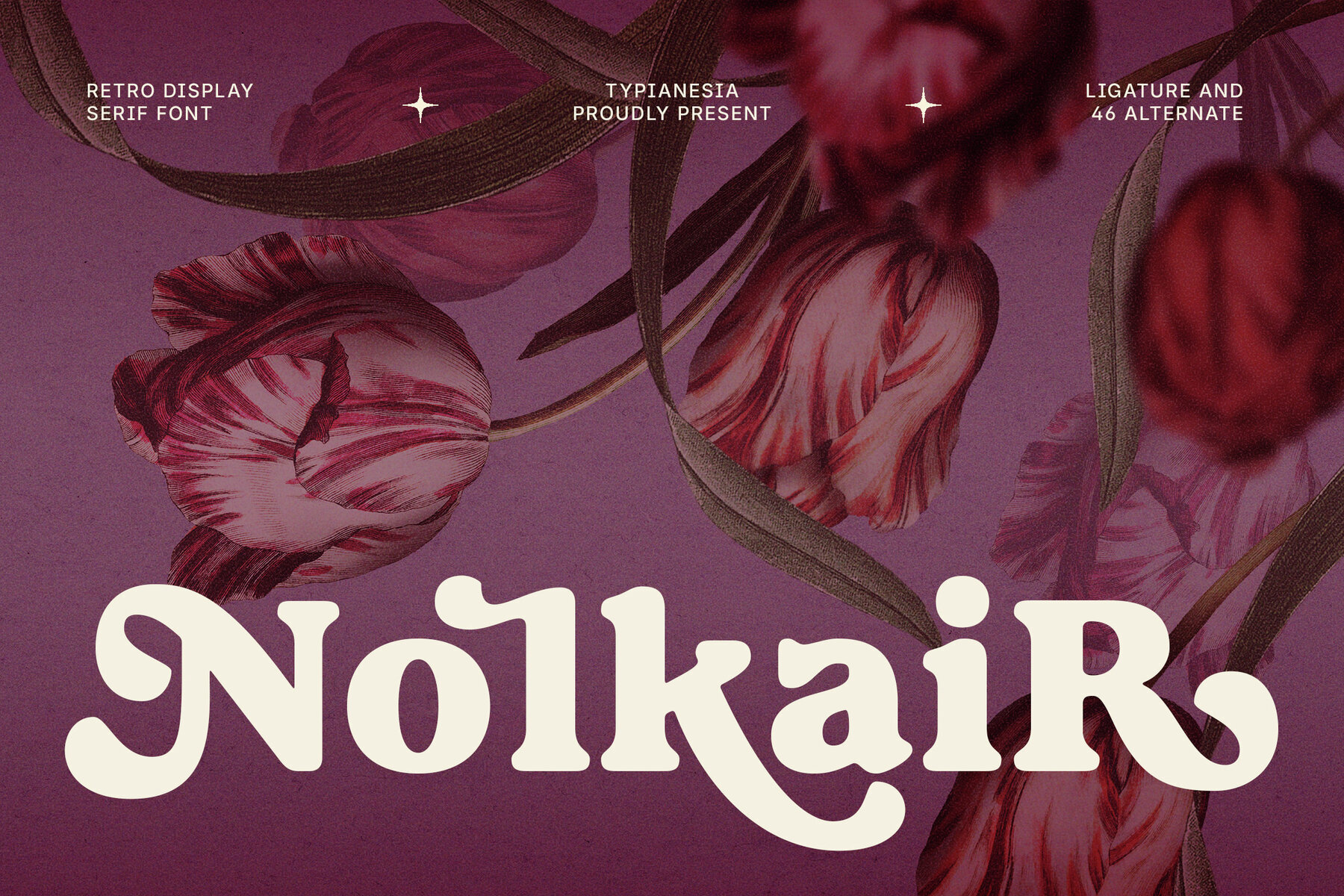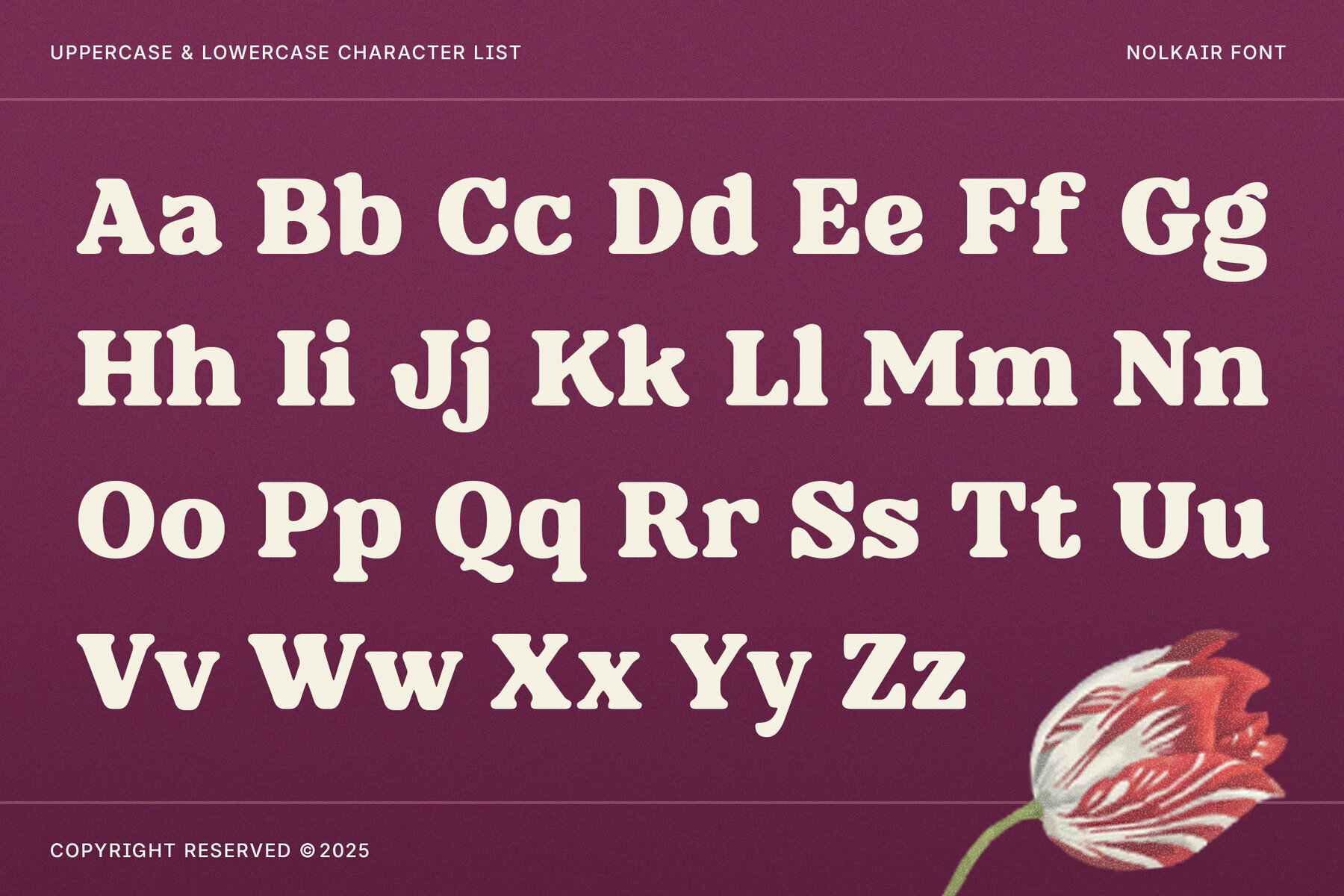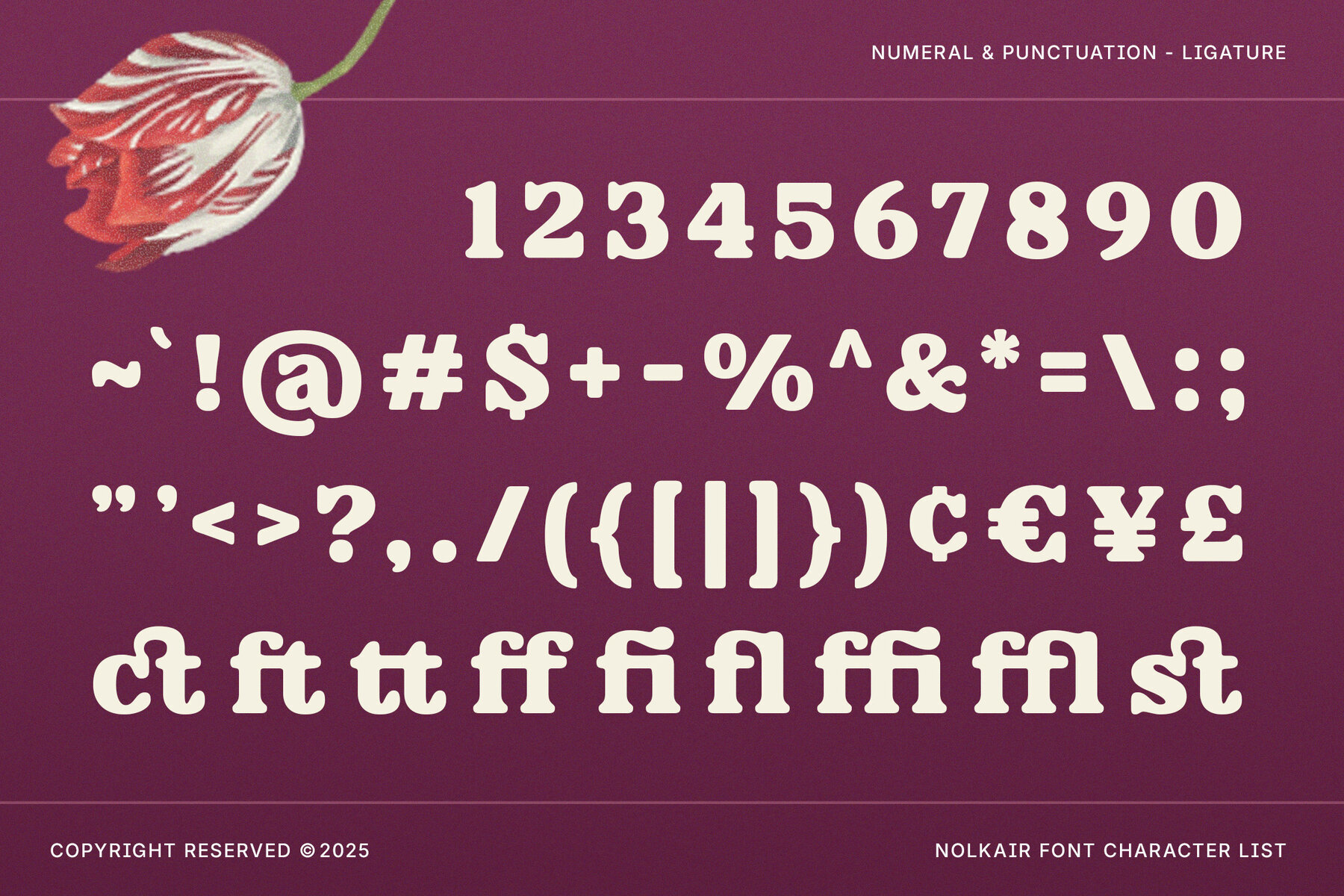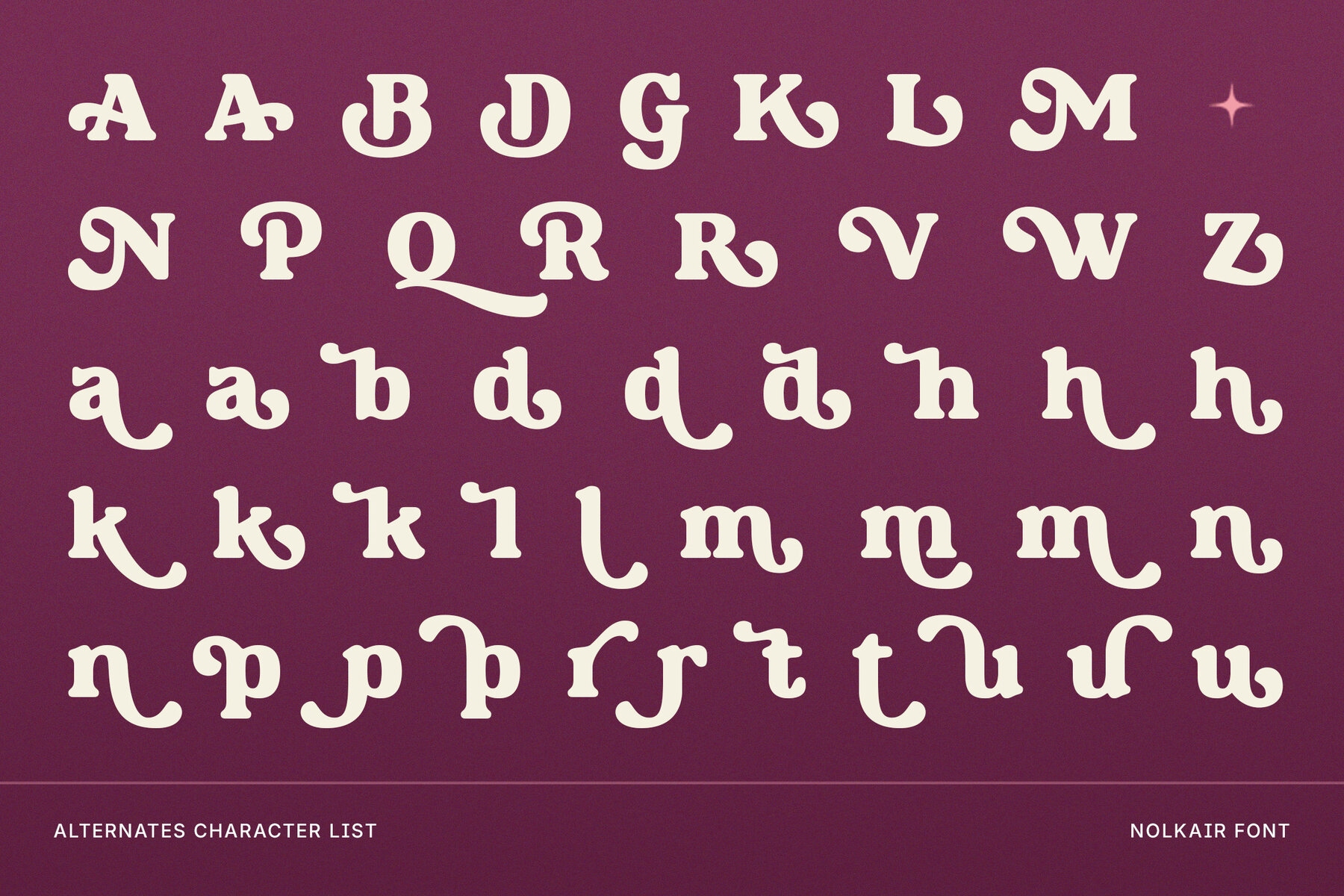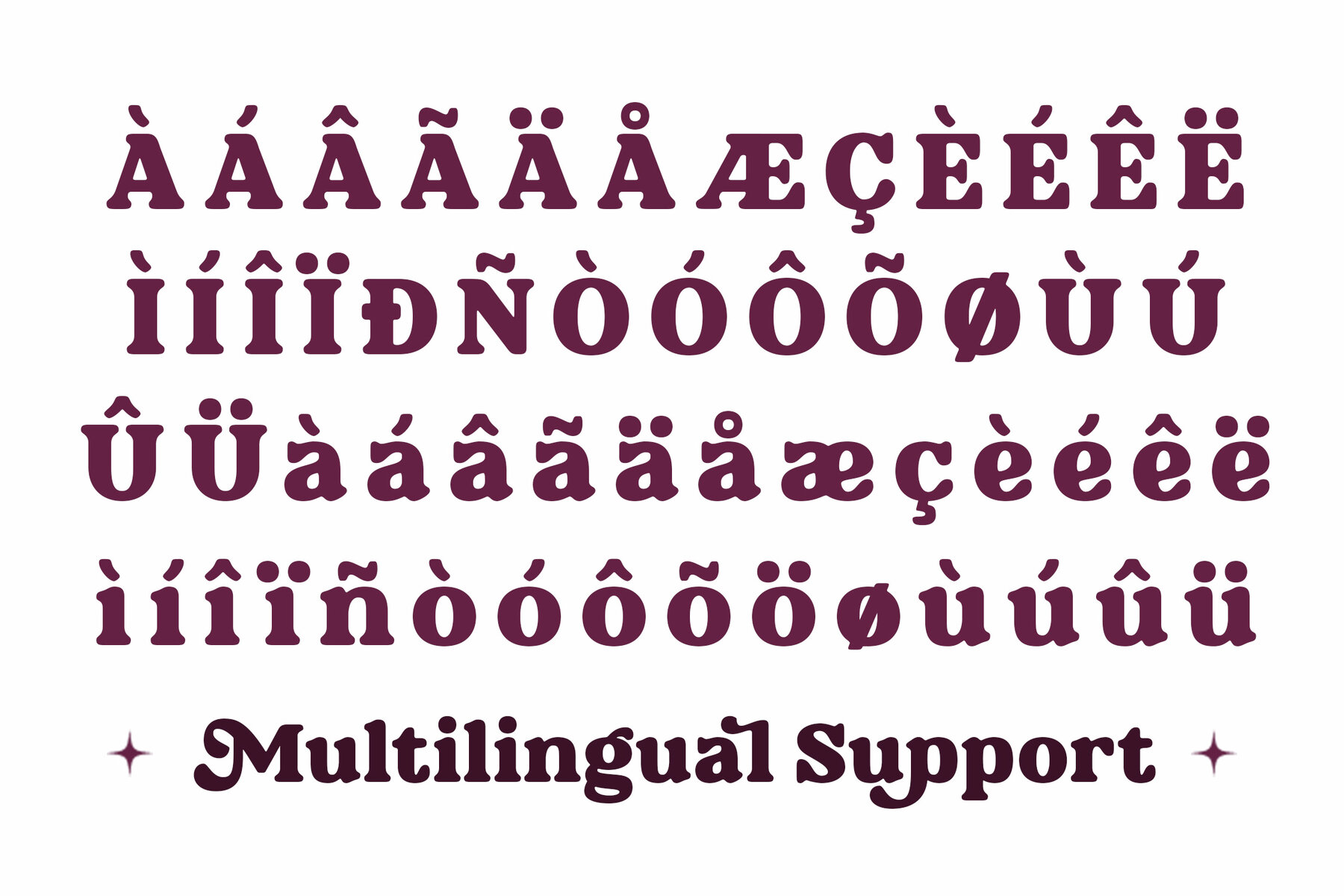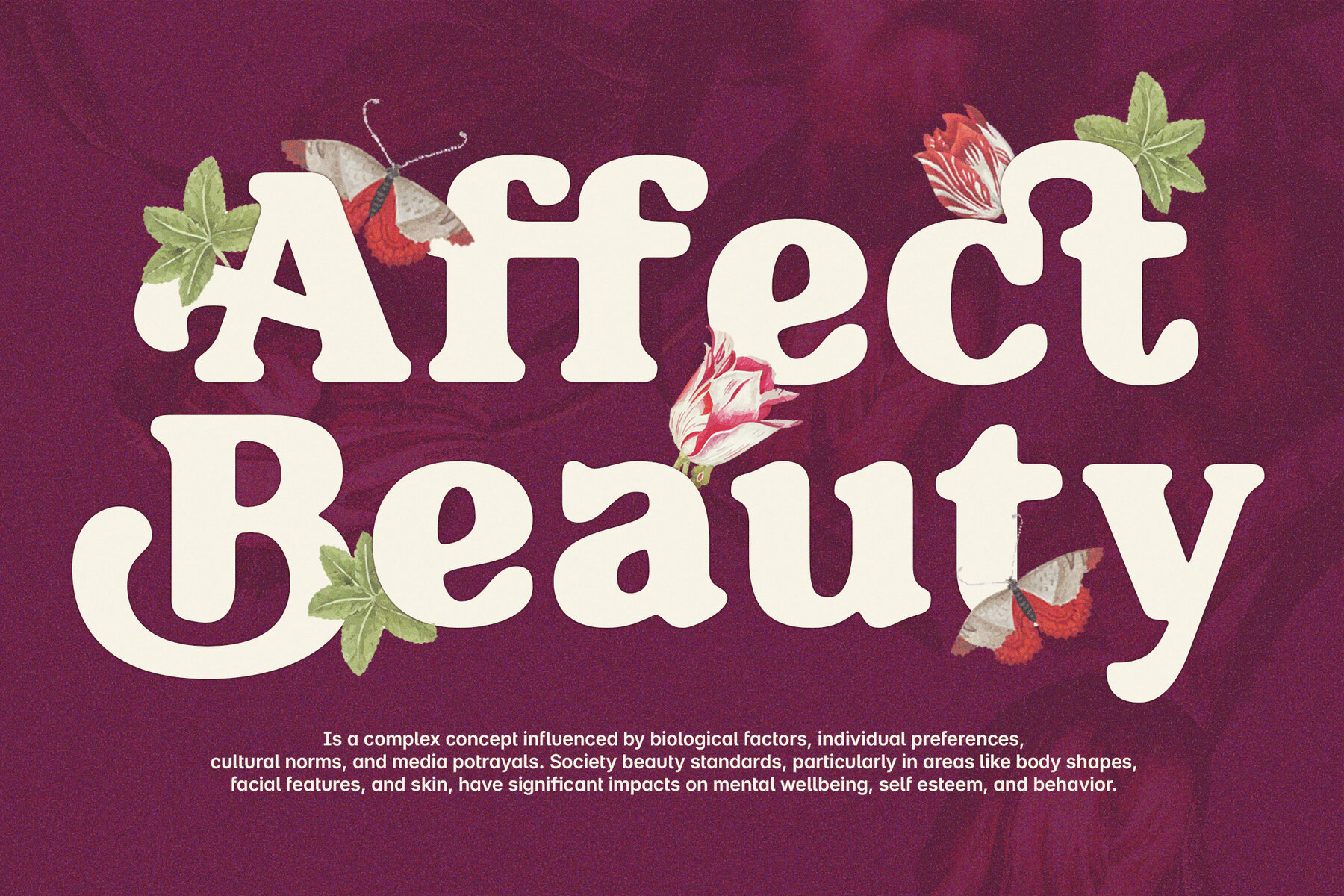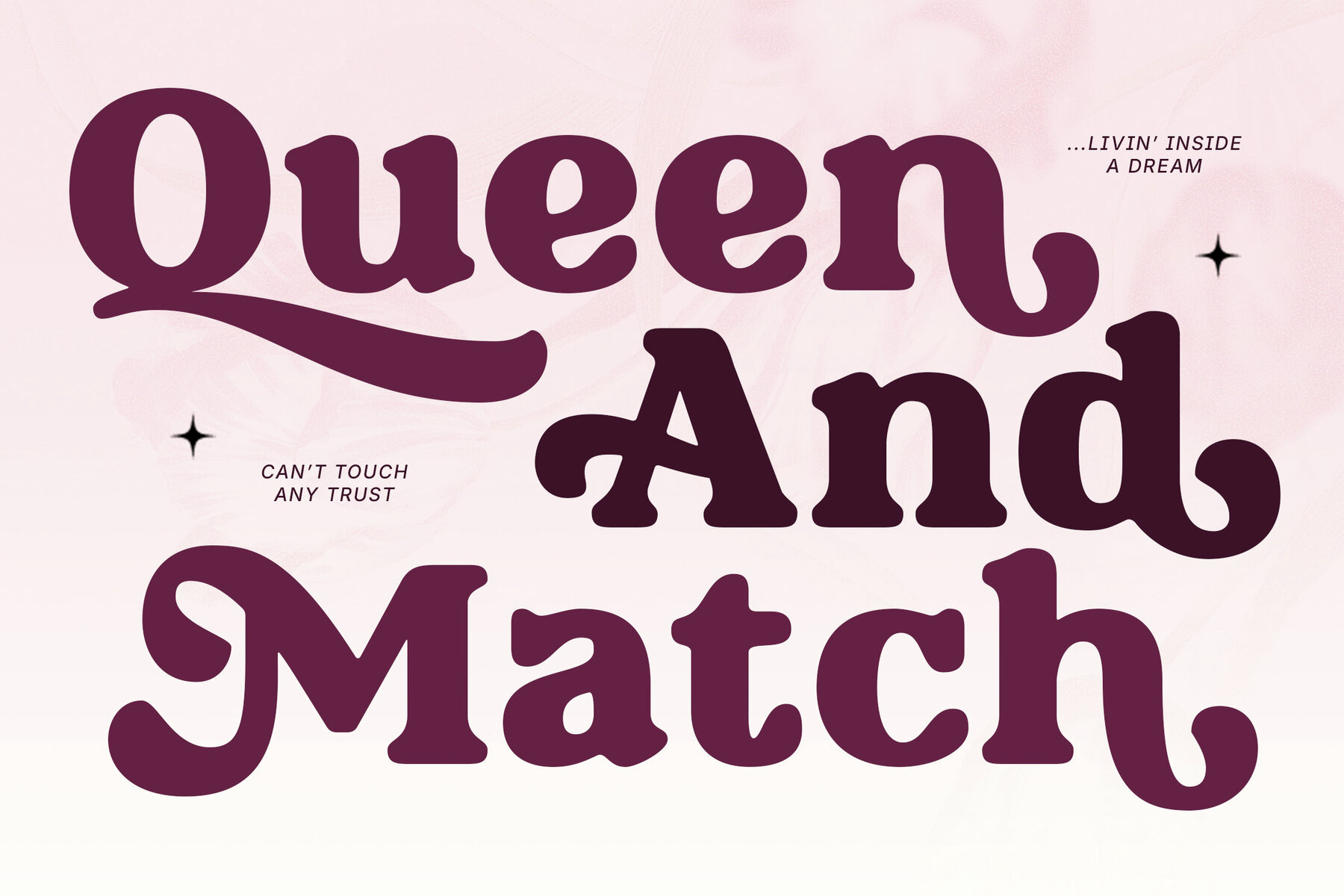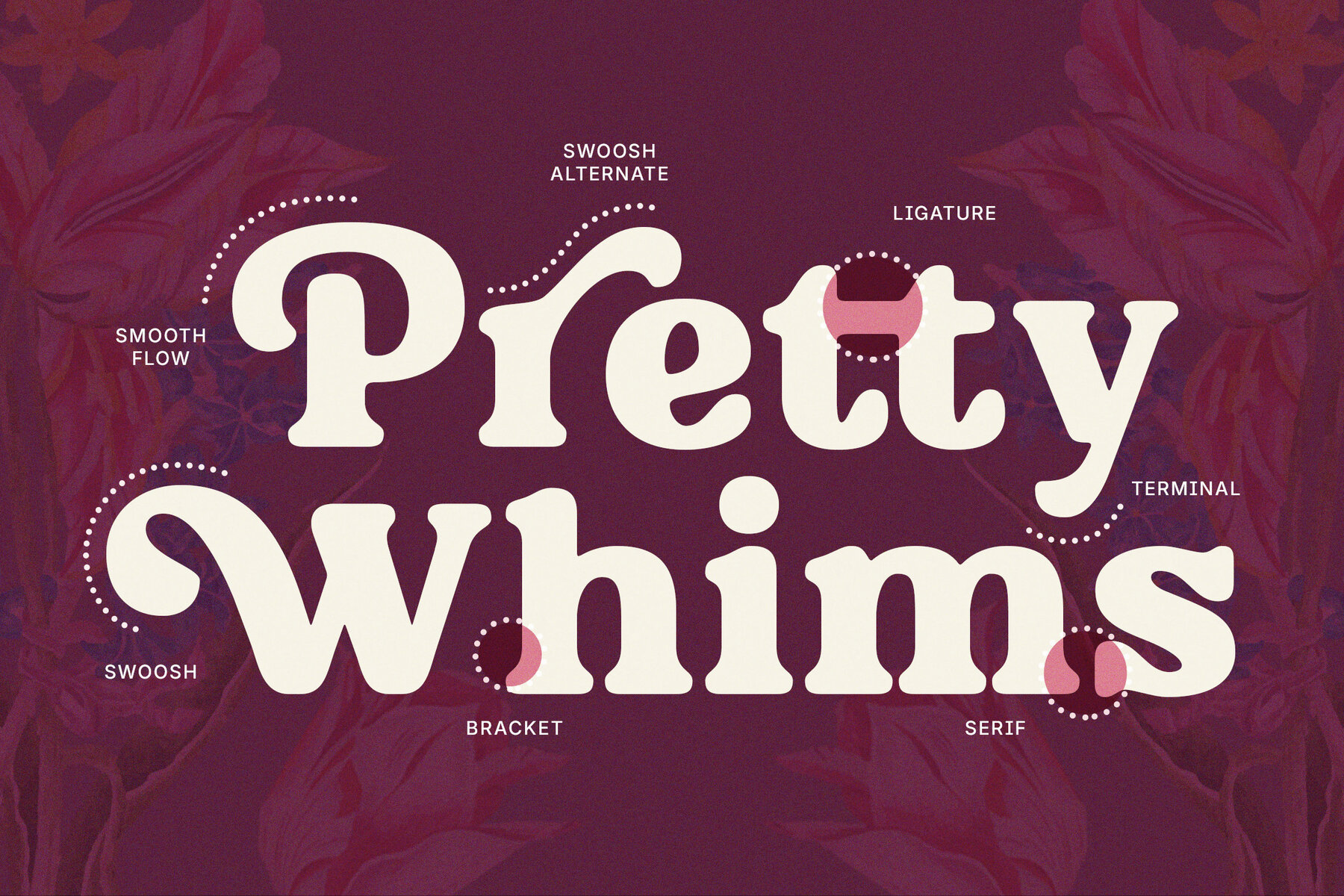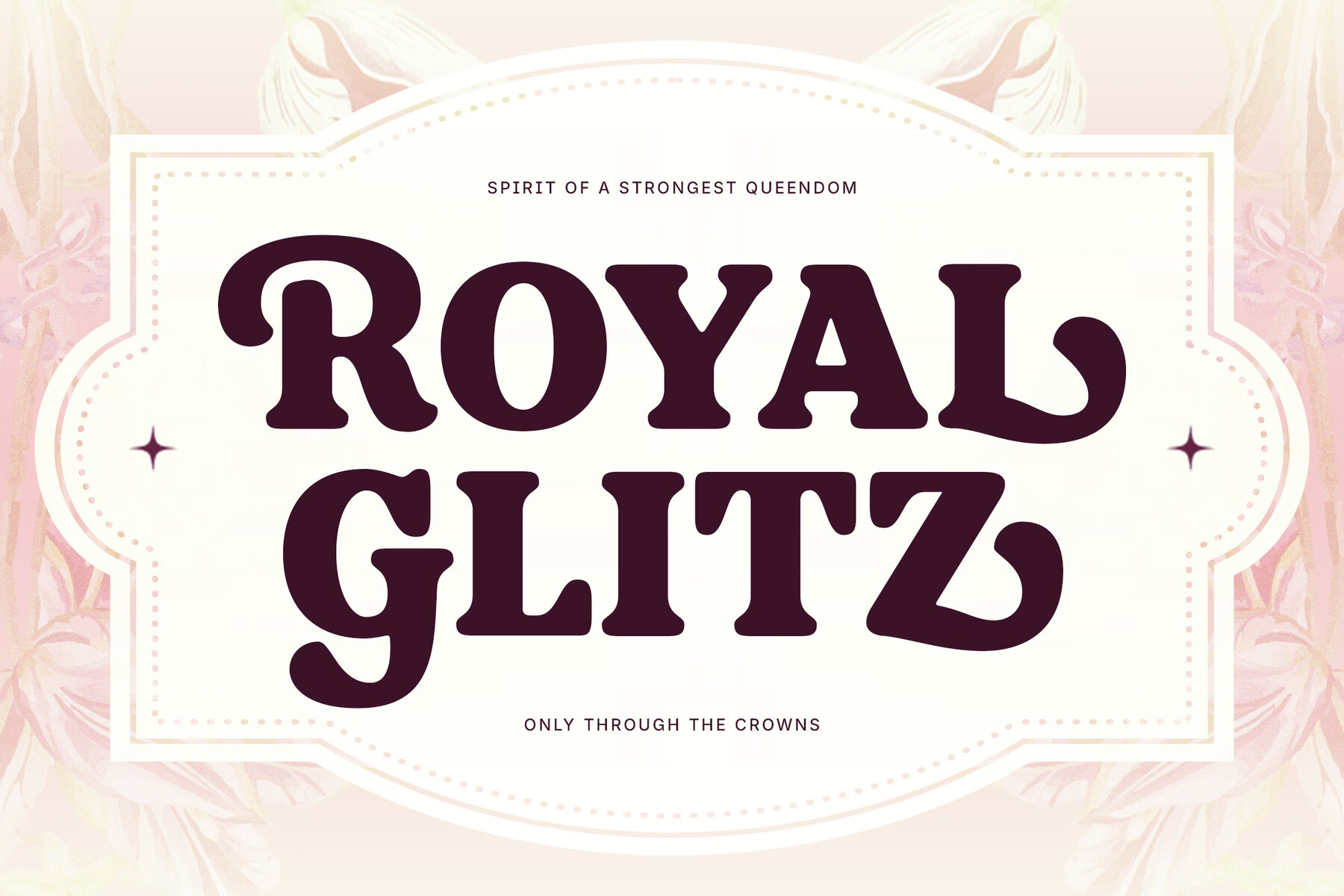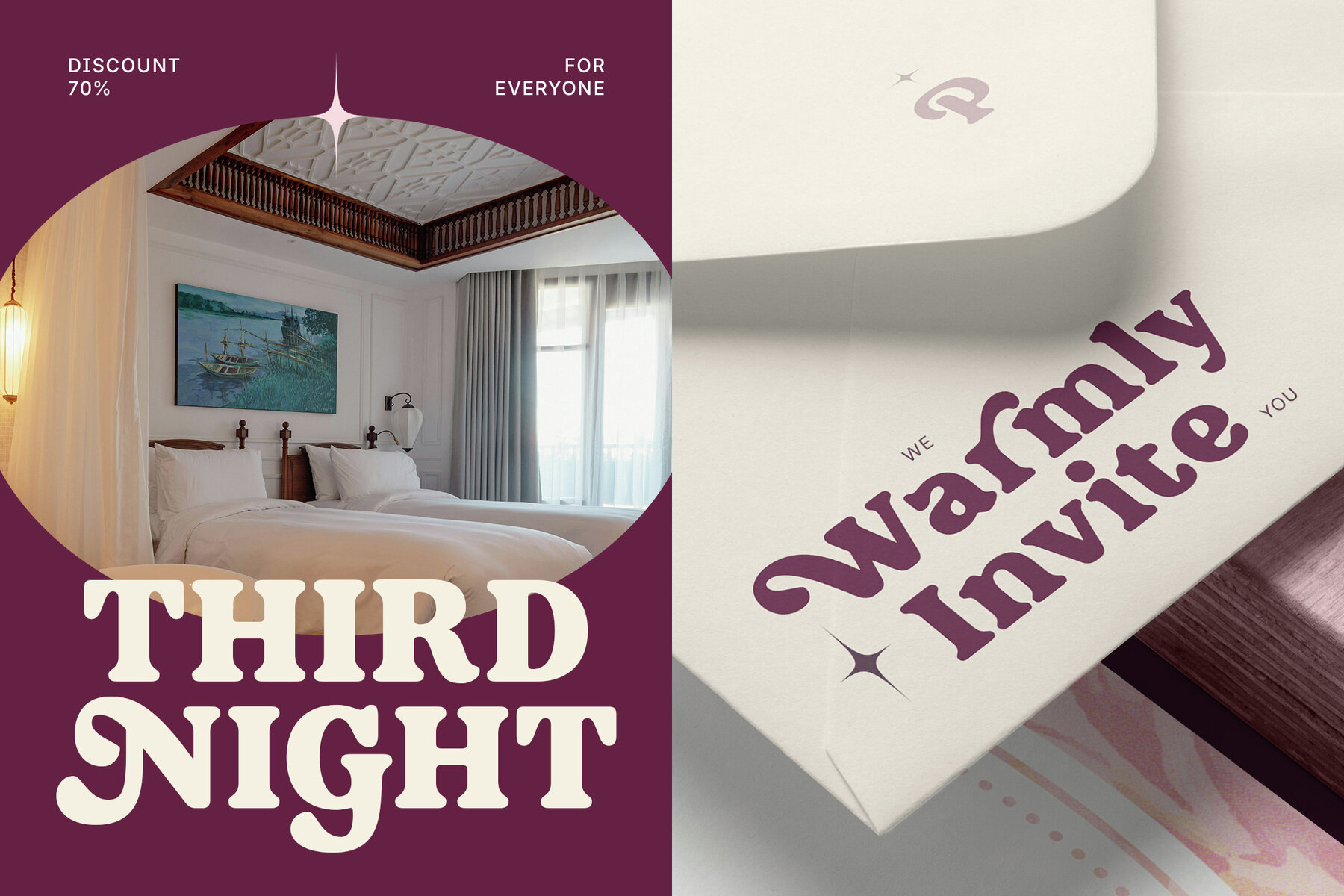
Nolkair Font
Nolkair Regular
Nolkair delivers bold character and playful sophistication with a retro-inspired serif design. Its chunky, rounded forms and expressive swashes recall the energy of the 80s, creating a memorable vintage look that stands out in any creative setting. This display typeface combines classic serif structure with a modern boldness, adding both charm and visual impact to your project. Perfect for projects that require a strong retro voice—whether branding a fashion label, designing event materials, or capturing summer’s lively atmosphere. Nolkair makes an impression wherever bold, groovy style is called for.Bold Retro Serif with 80s Swashes